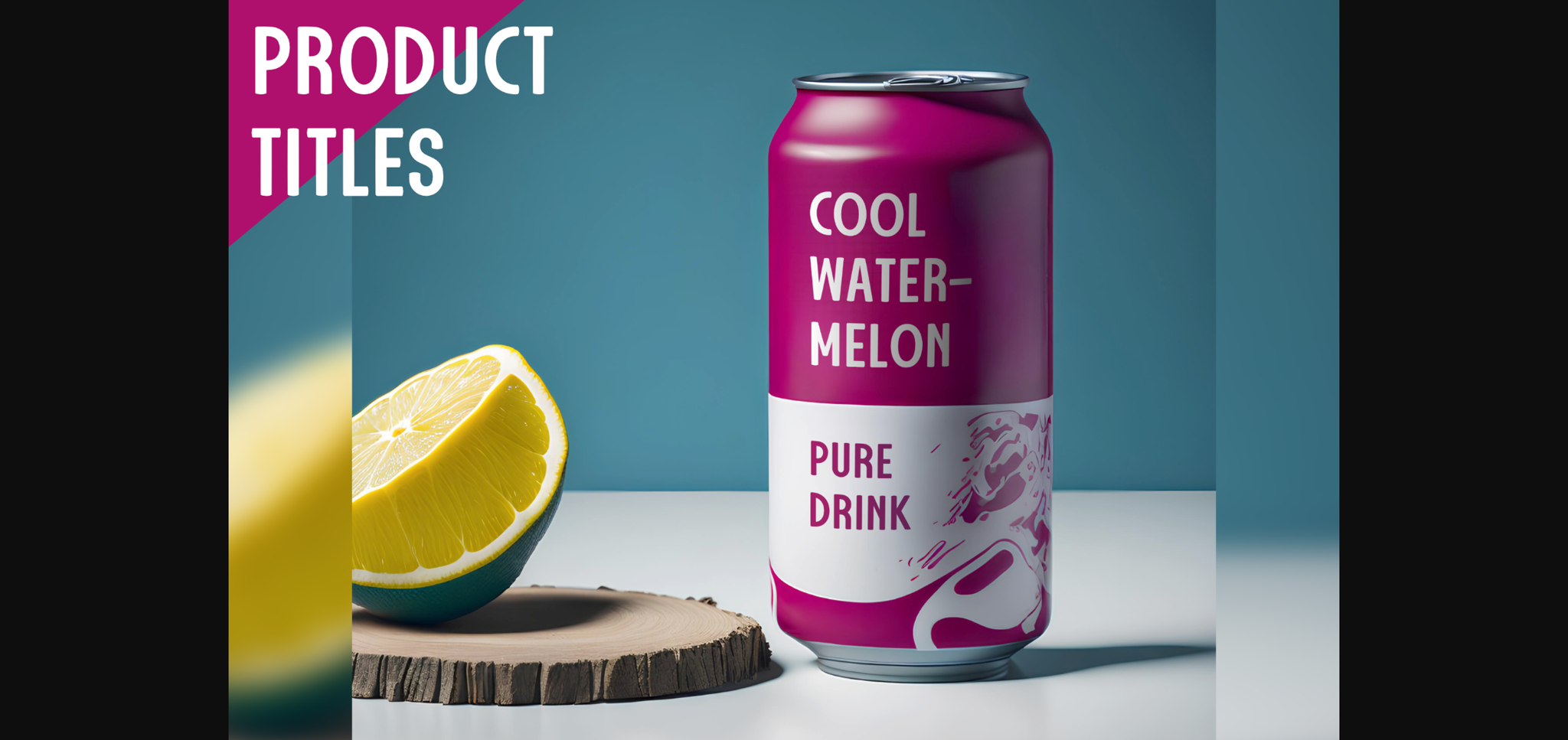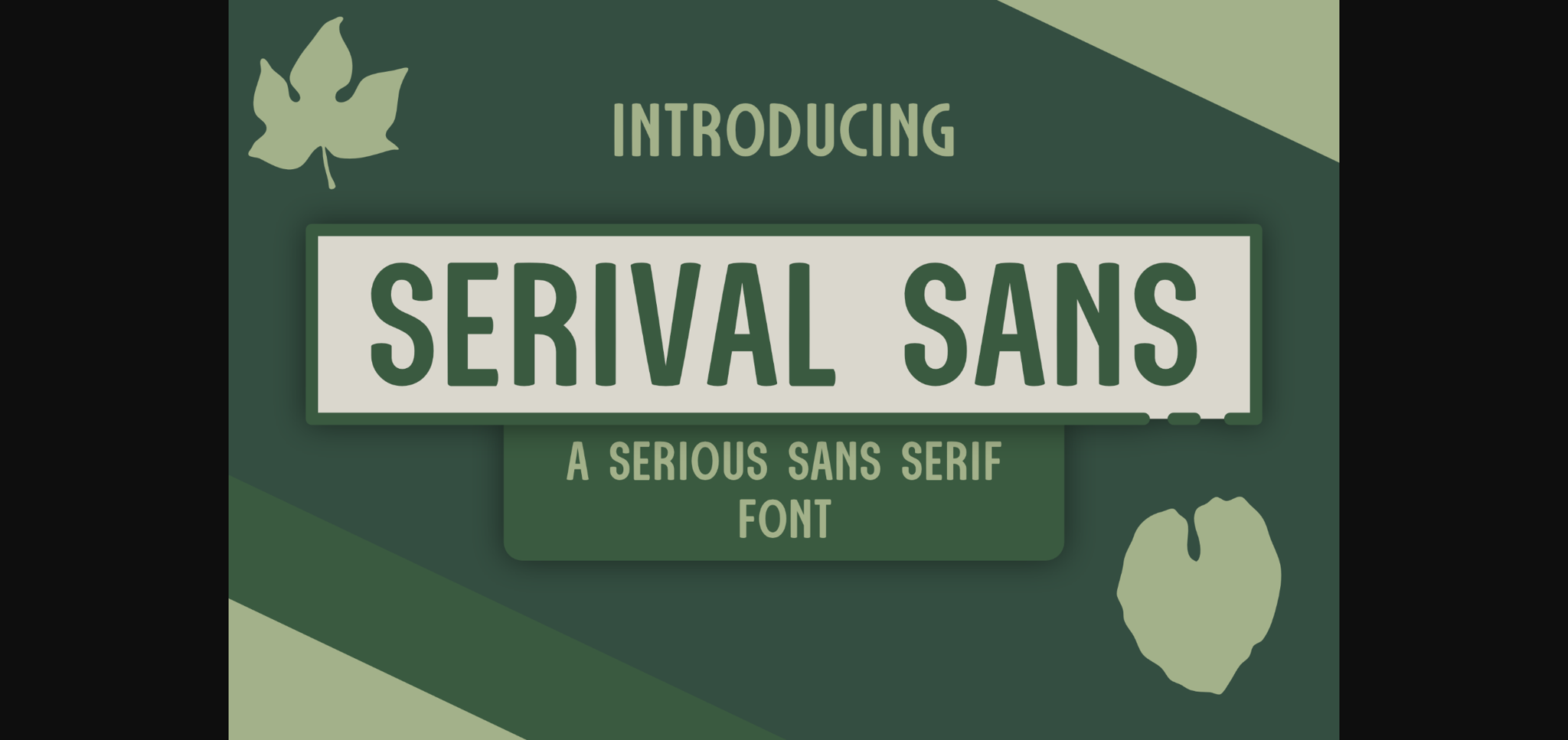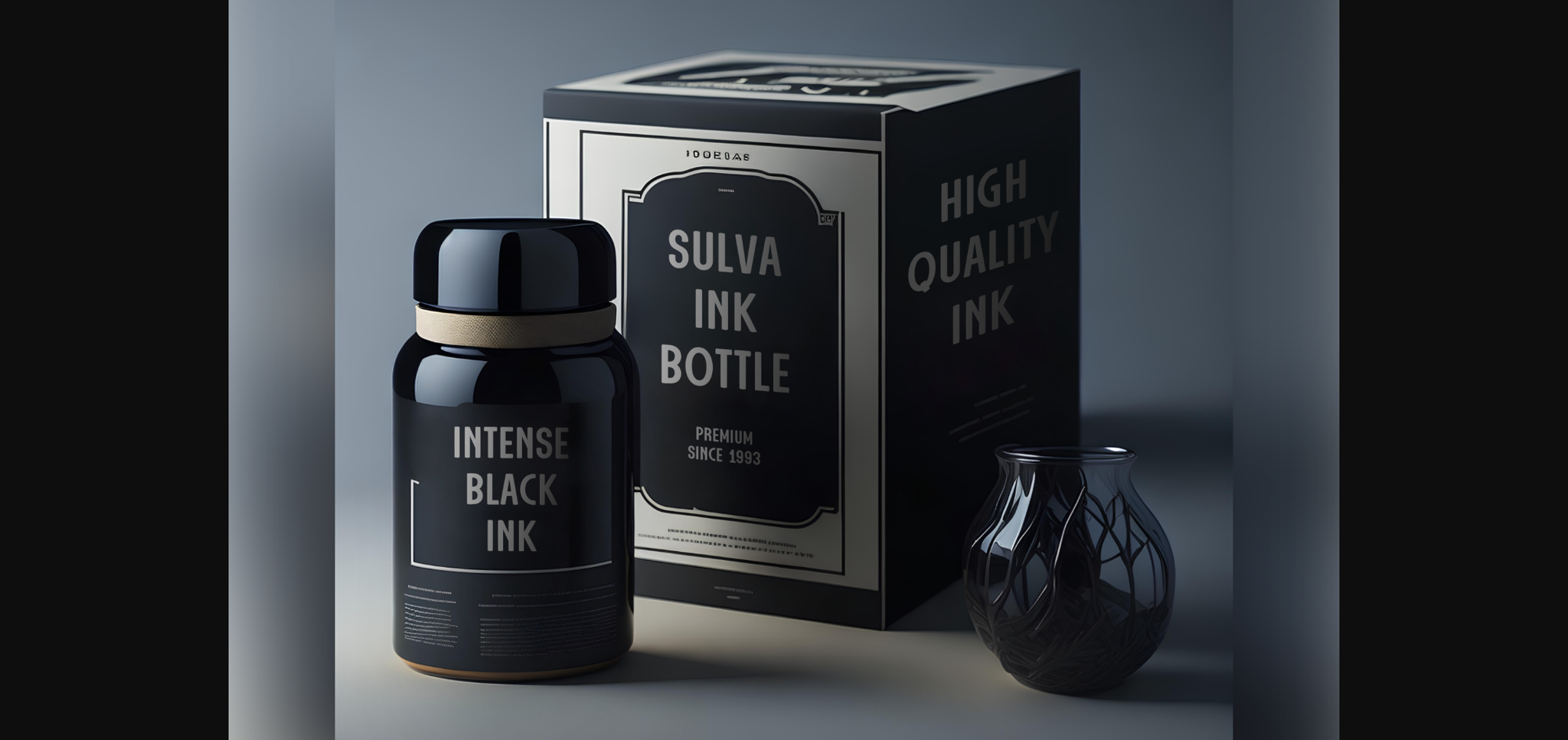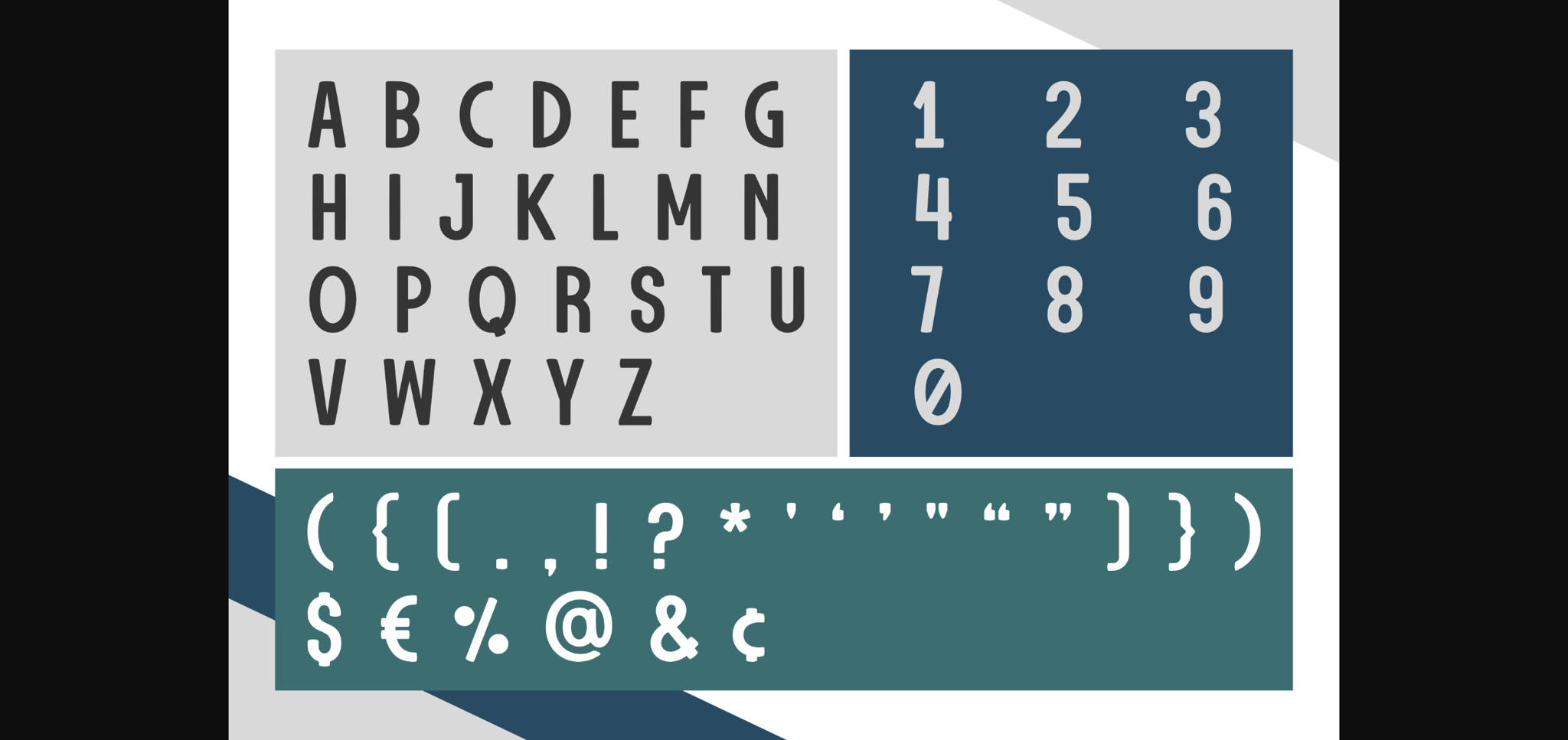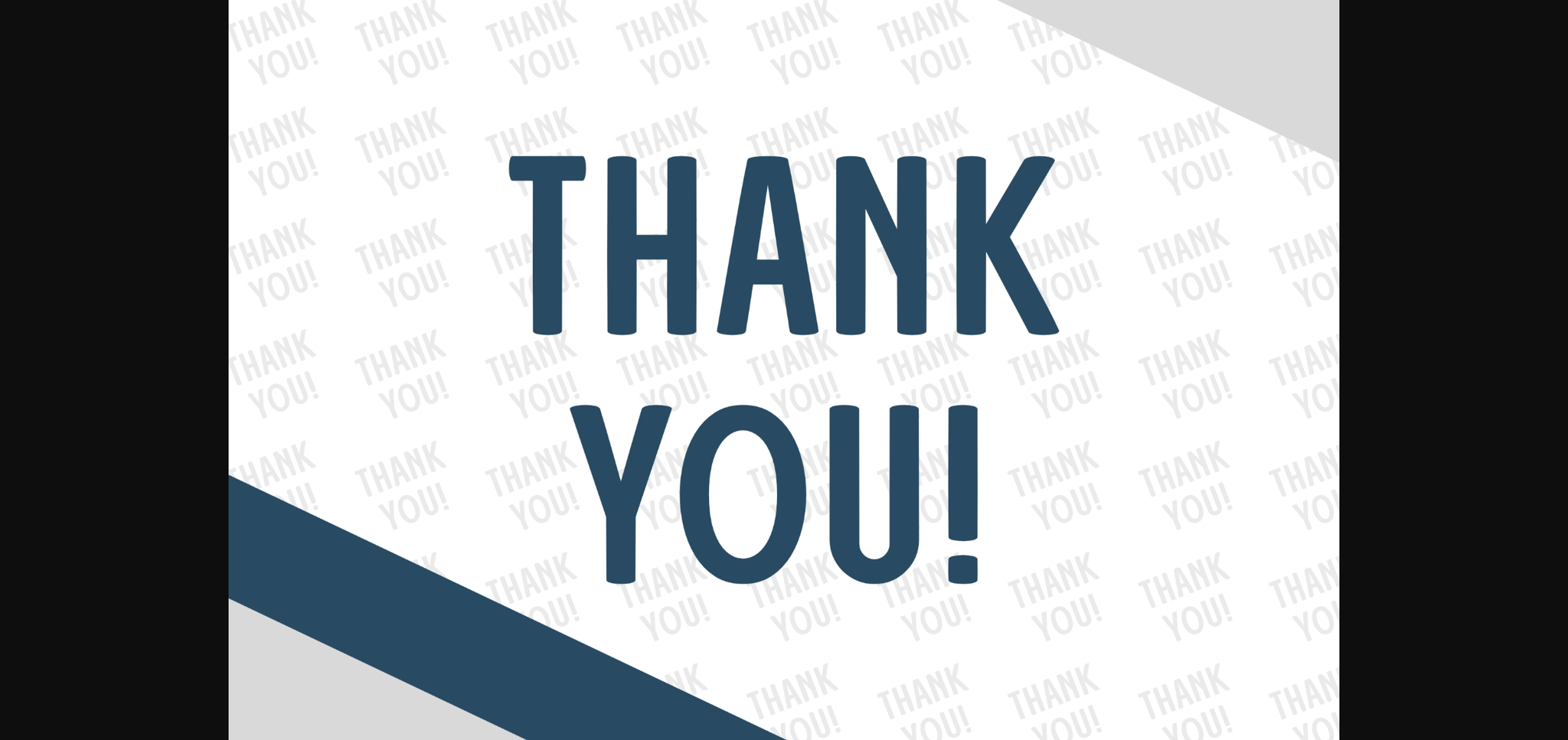
Serival Sans Font
About Serival Sans Font
Unveil the timeless elegance of our Serival all-caps Font. With balanced letterforms, smooth curves, and subtle details, this font strikes the perfect balance between classic and contemporary. Whether you’re crafting a logo, editorial layout, or website, Serival Font’s exceptional legibility and refined aesthetic ensure your message is conveyed with clarity and sophistication. Elevate your typography game and make a lasting impression with the versatility and beauty of Serival Font.